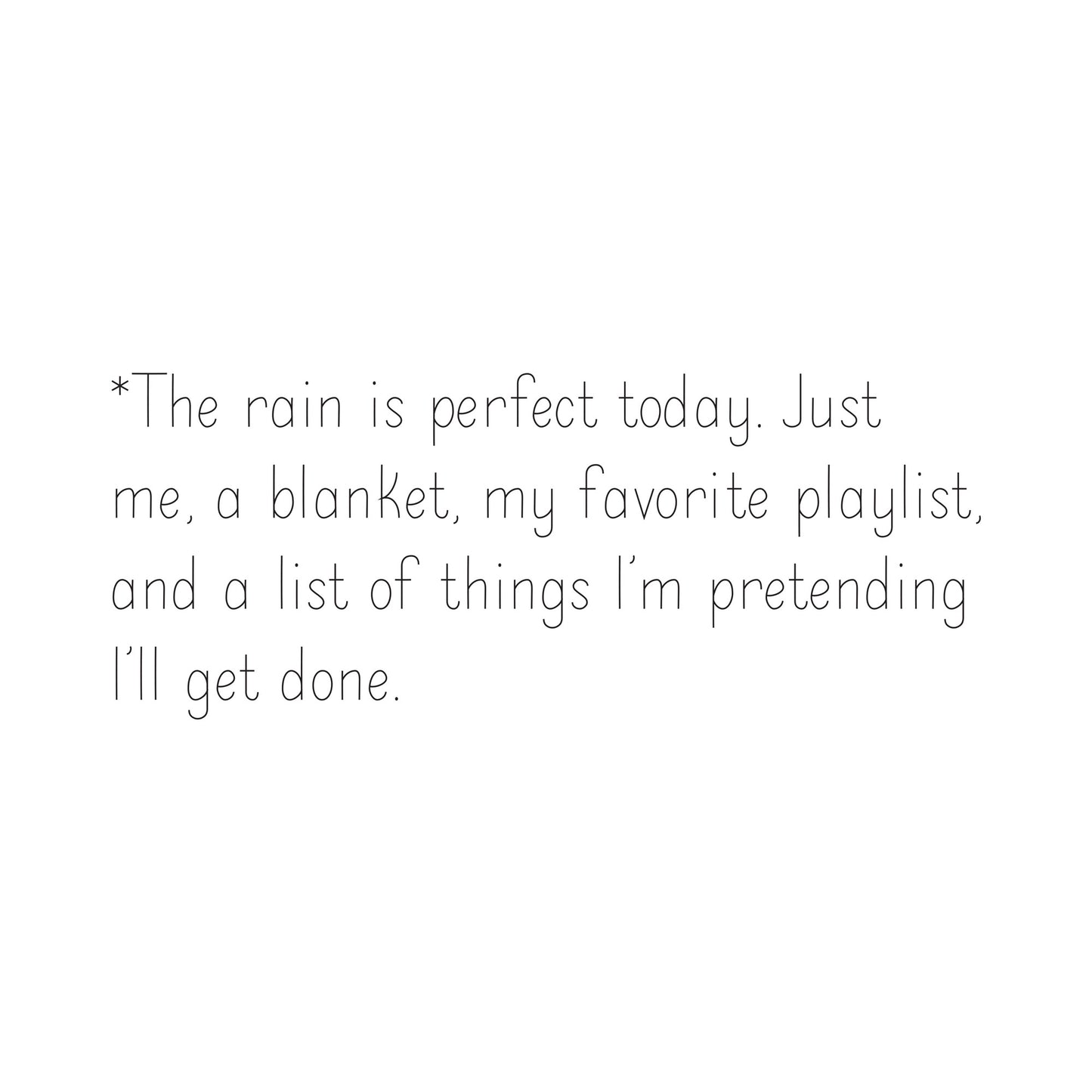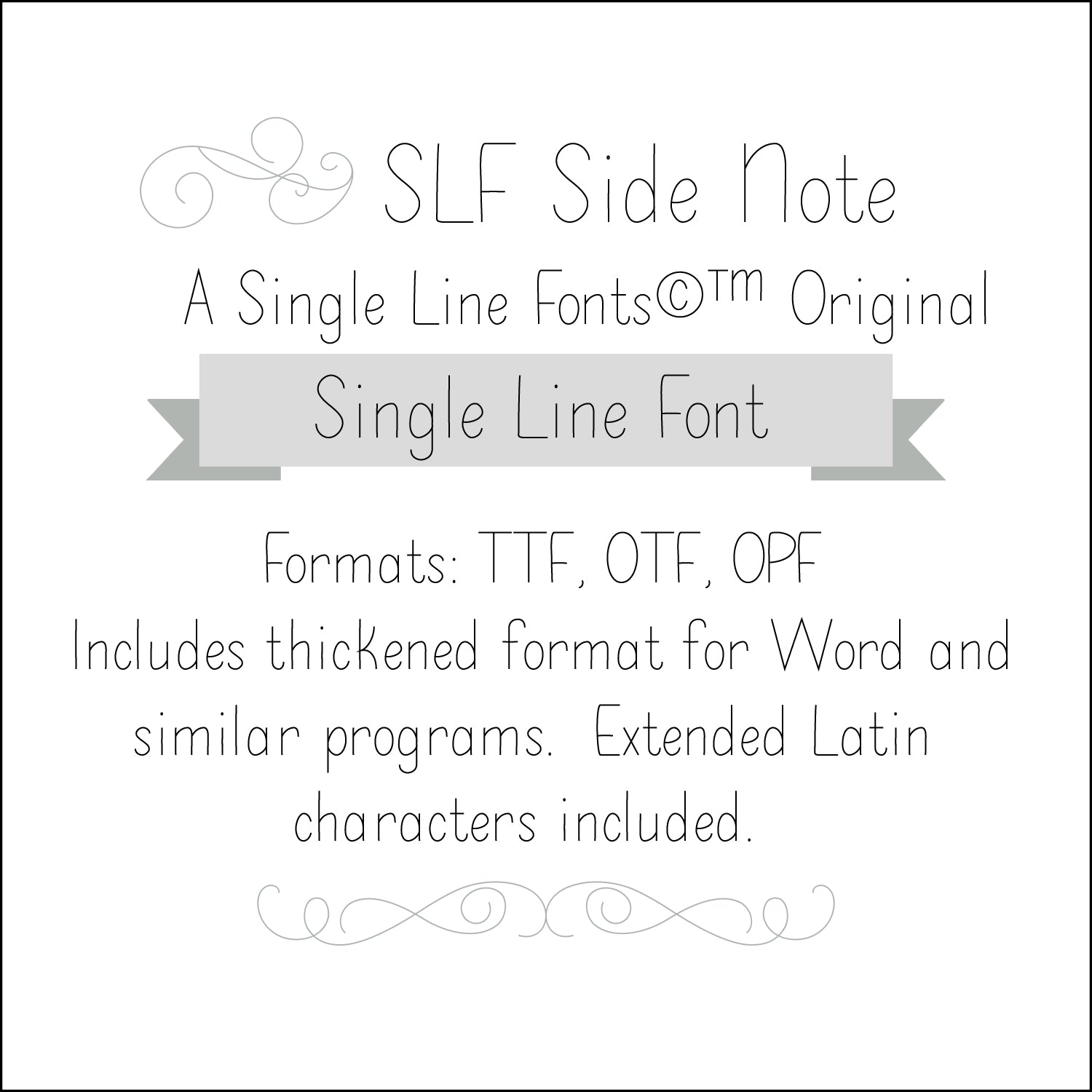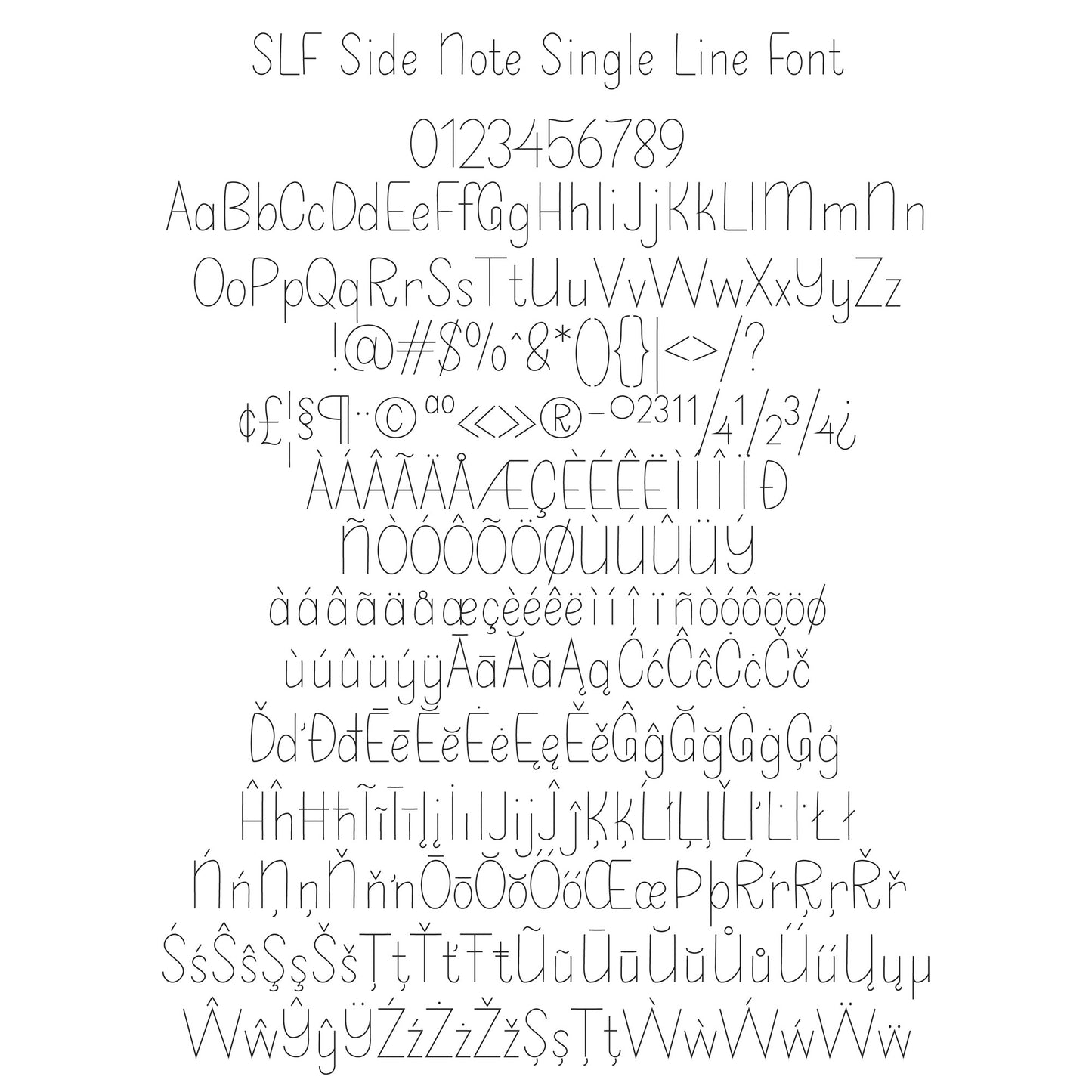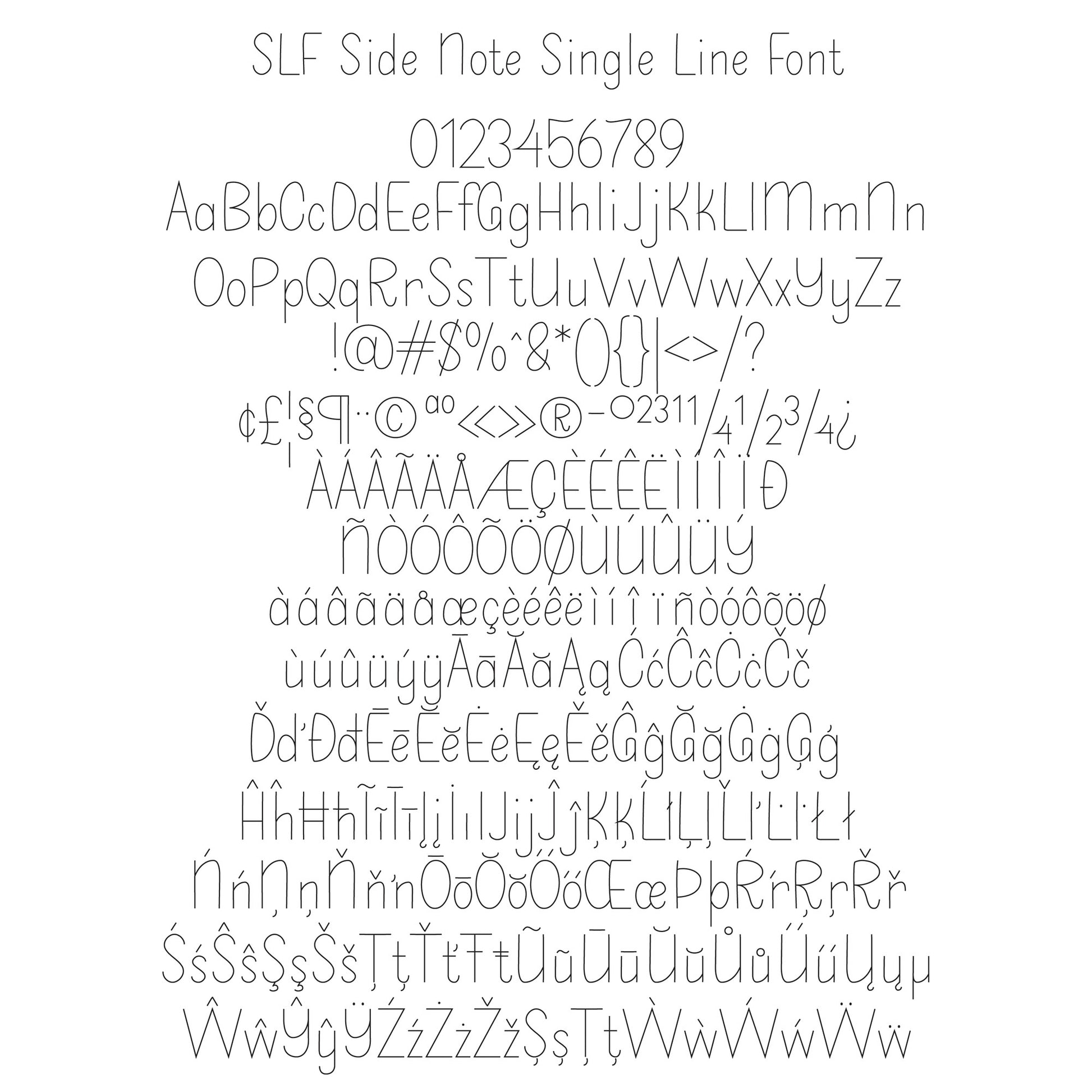
SLF Side Note – Single Line Font for Engraving, CNC, Glowforge & Cricut
SLF Side Note is a single line engraving font designed for smooth, clean, and precise results on engraving, scoring, and sketch-based machines. Its tall, narrow letters and monoline strokes make it ideal for detailed projects, journaling layouts, tags, labels, and personalized gifts.
This font includes a full character set with uppercase and lowercase letters, numbers, punctuation, symbols, math characters, currency marks, and accented characters for multilingual support.